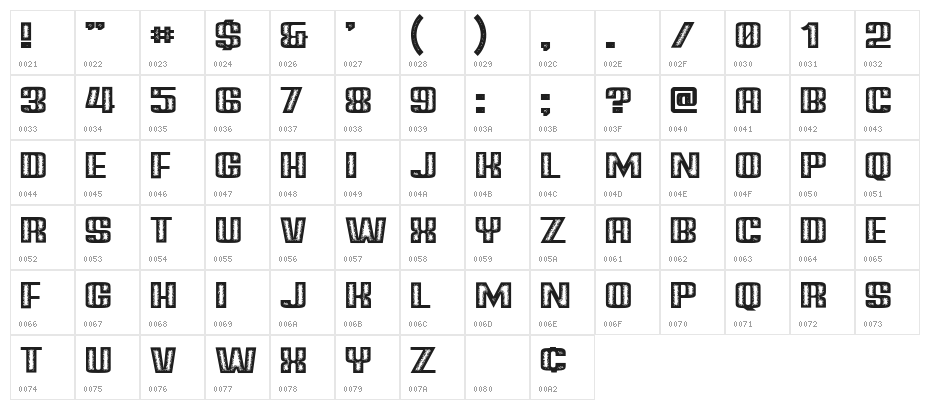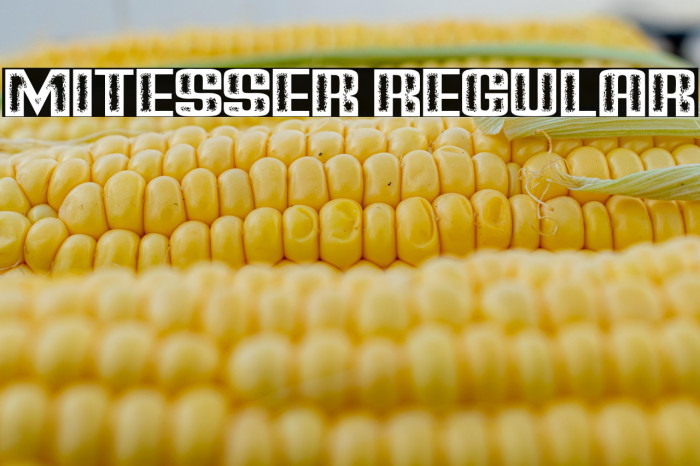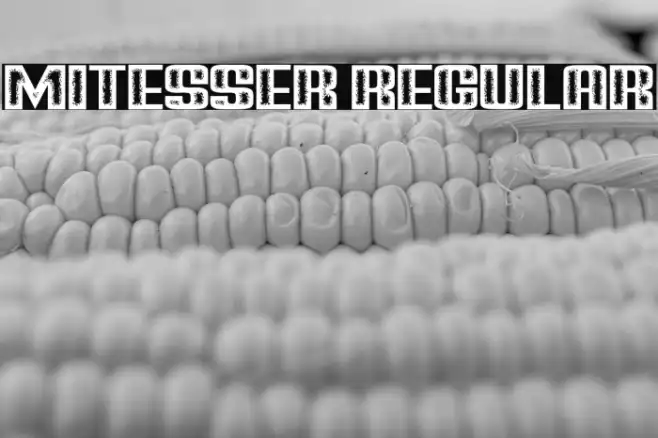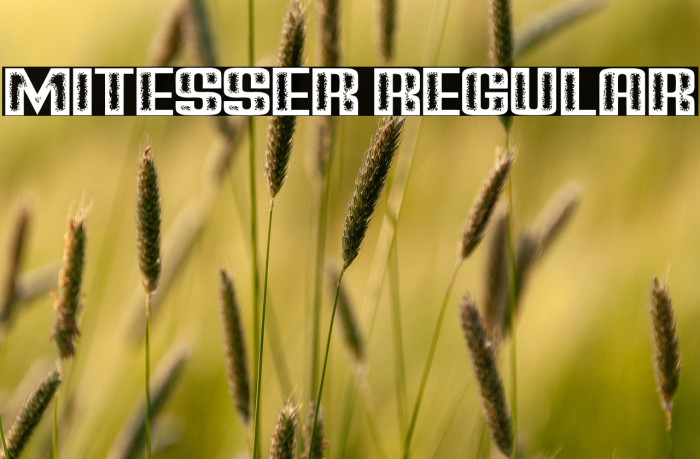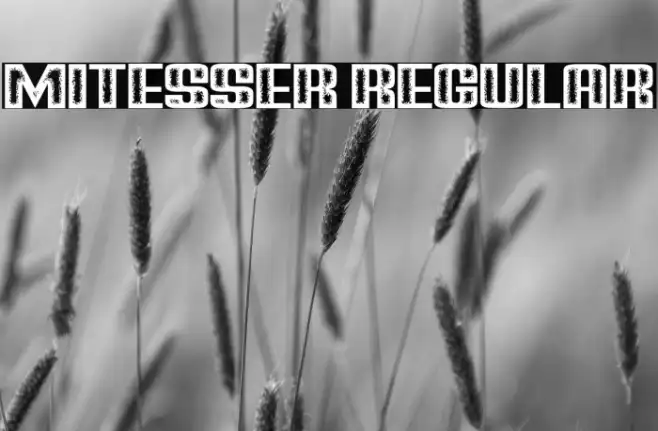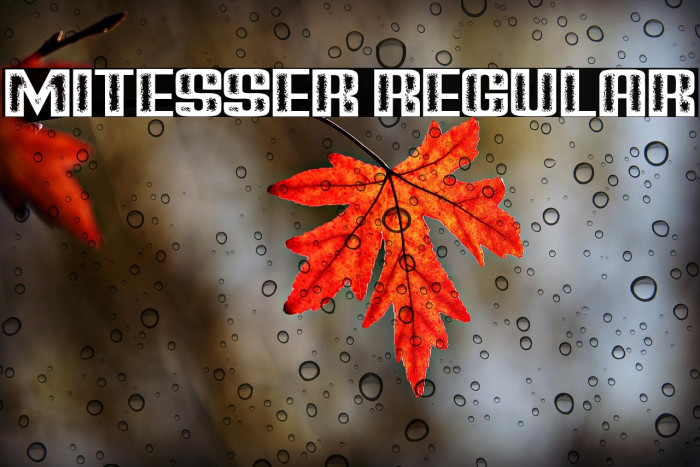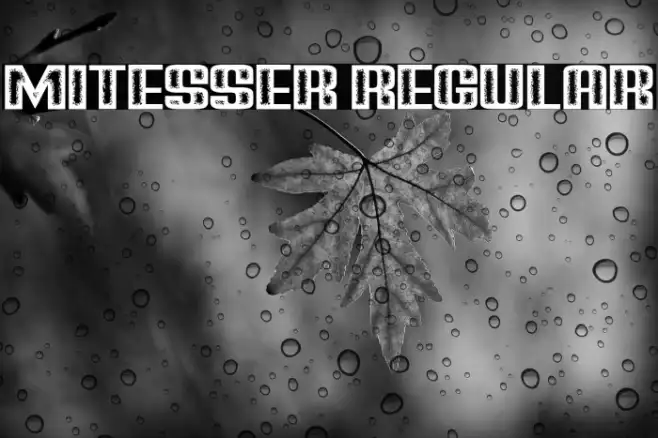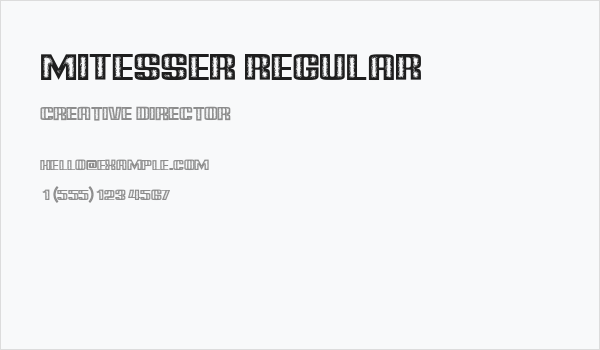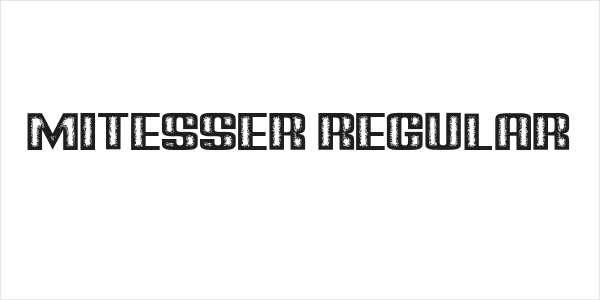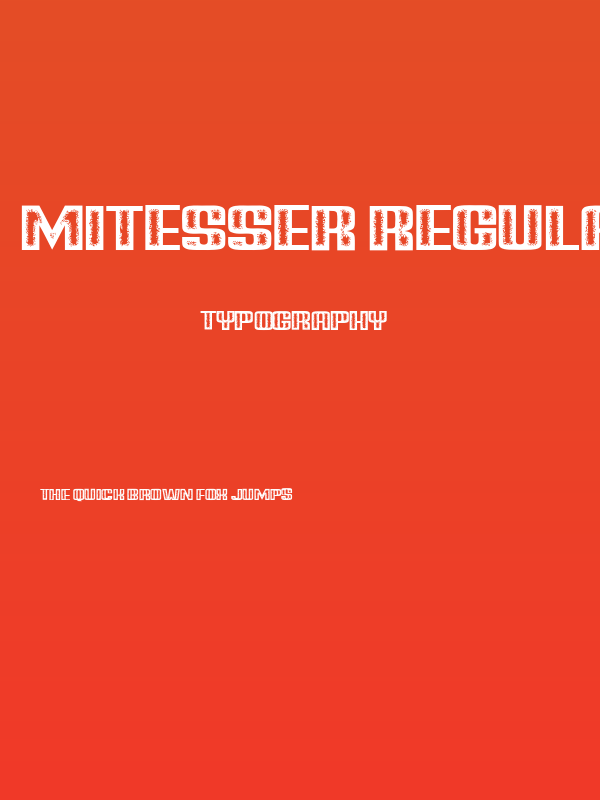
Mitesser Regular Font
Mitesser Regular Description
This font features a bold, distressed style with a textured appearance that gives it a rugged, worn look. The characters are blocky and robust, with a consistent width that maintains readability despite the decorative elements. The uppercase and lowercase letters share a similar design, enhancing uniformity across different text sizes. Numbers and special characters are equally stylized, making them suitable for creative and impactful designs. The font's unique texture adds depth and character, making it ideal for projects that require a strong visual presence.
| Proposed Projects | Ideal for posters, album covers, branding, and any design requiring a bold, impactful look. |